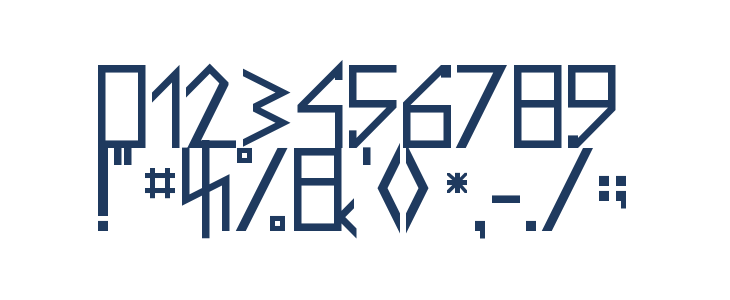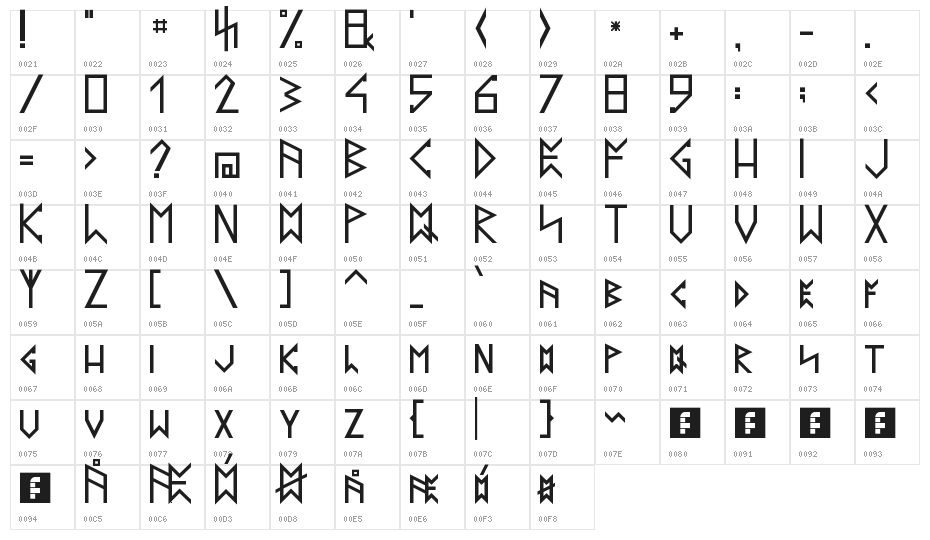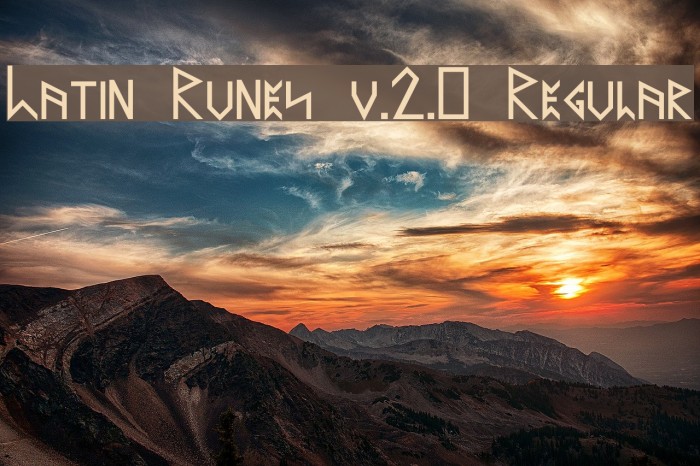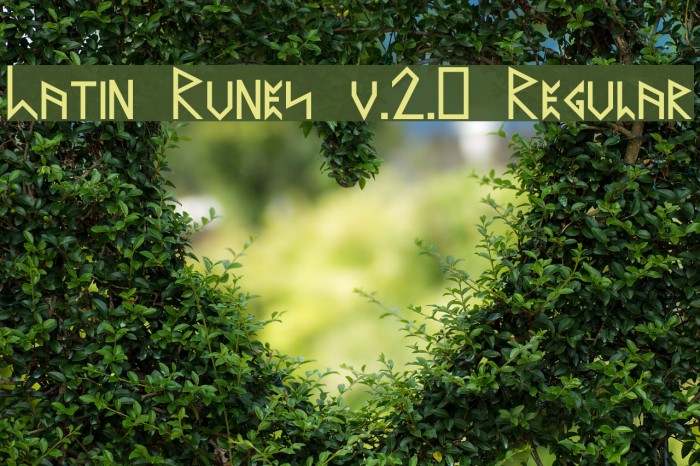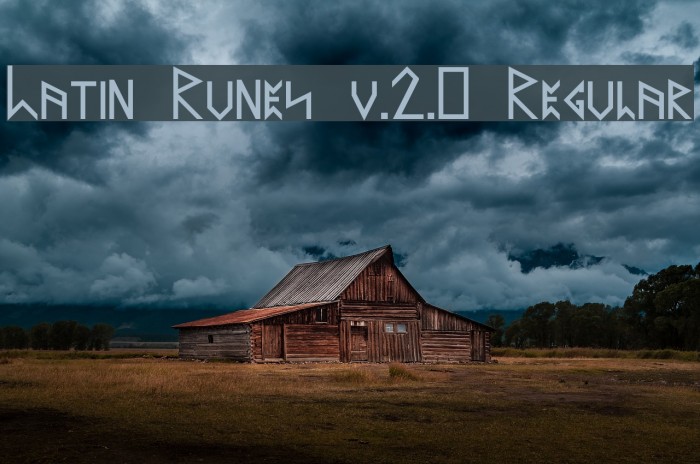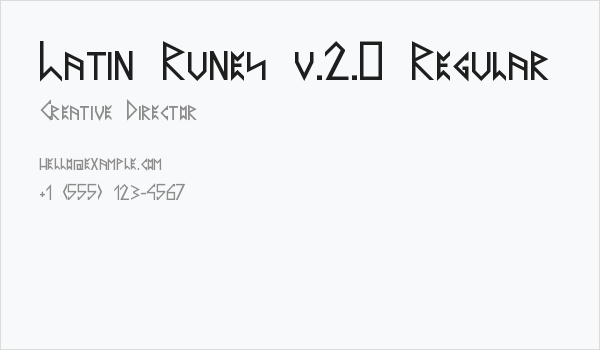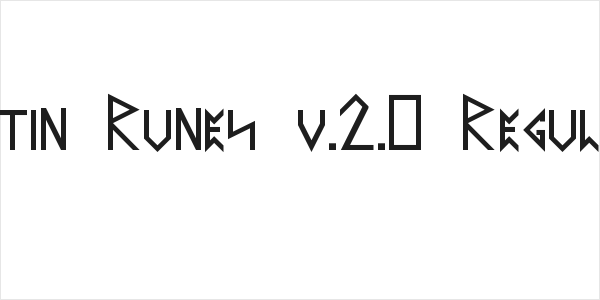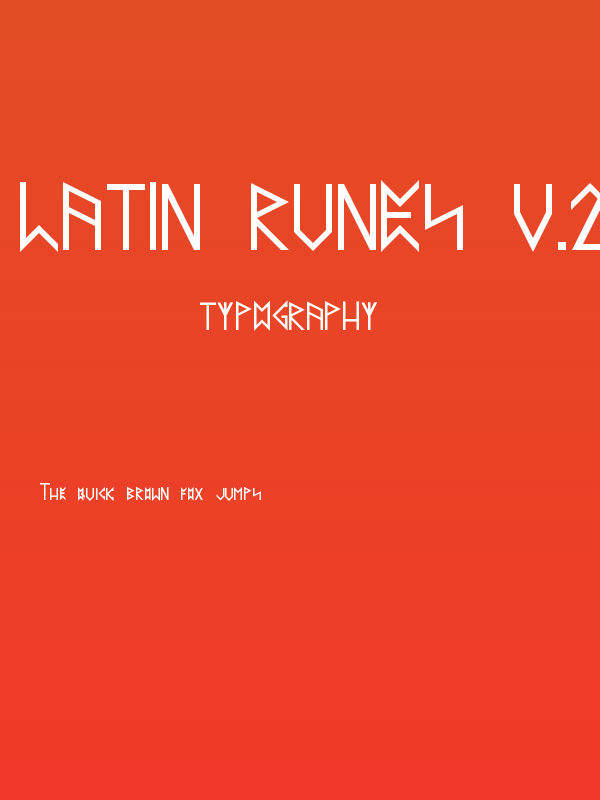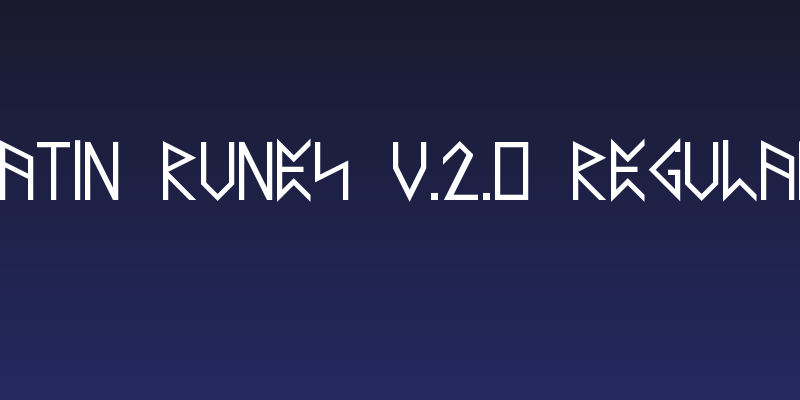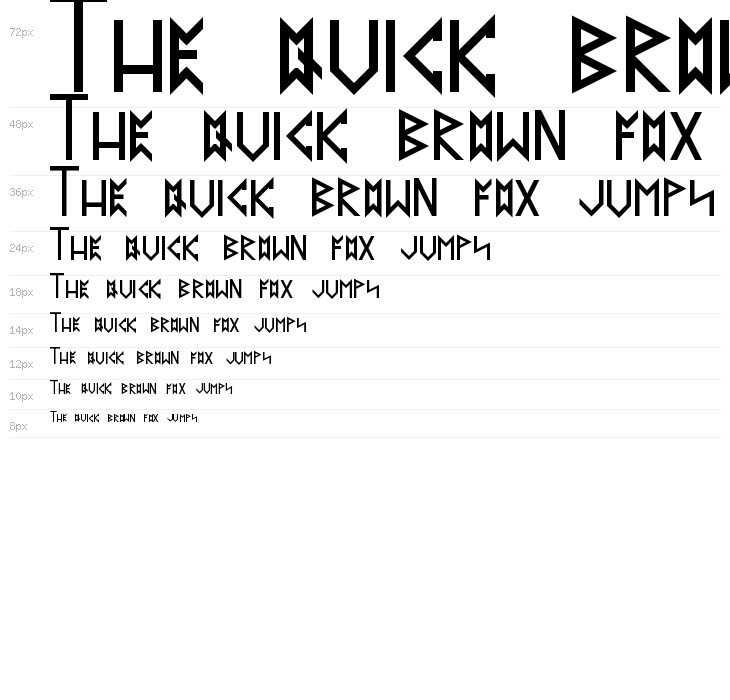
This font features a bold, angular design reminiscent of ancient runic alphabets. Each character is crafted with sharp, geometric lines, giving it a distinct and edgy appearance. The uppercase and lowercase letters maintain a consistent style, with unique variations that enhance its visual appeal. Numbers and special characters are designed to match the overall aesthetic, making it suitable for projects that require a strong, impactful look. The font's unique style makes it ideal for creative and thematic designs, particularly those that aim to evoke a sense of mystery or antiquity.
| Use Case | Logos, Posters, Headlines |
| Proposed Projects | Ideal for fantasy-themed designs, game titles, posters, and logos that require a mystical or ancient feel. |